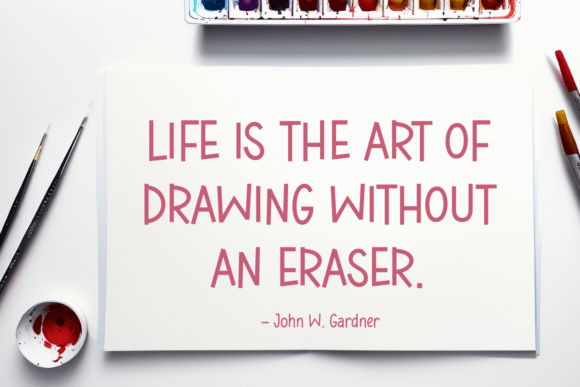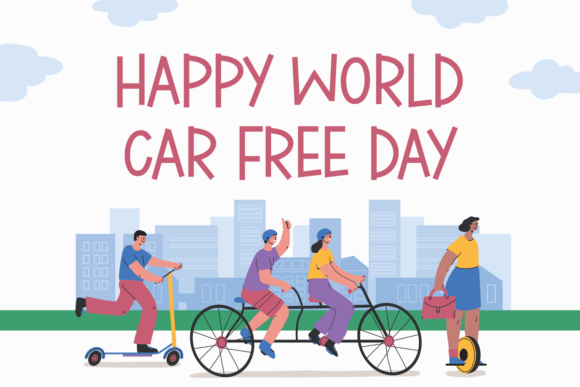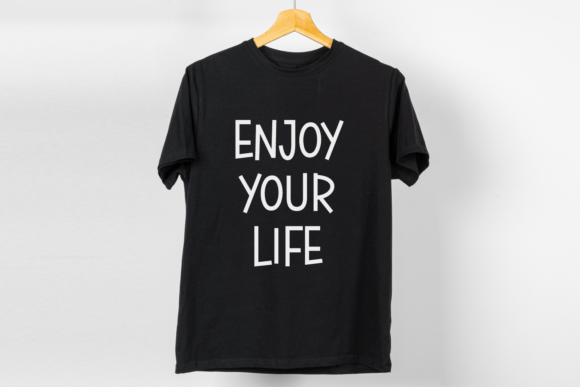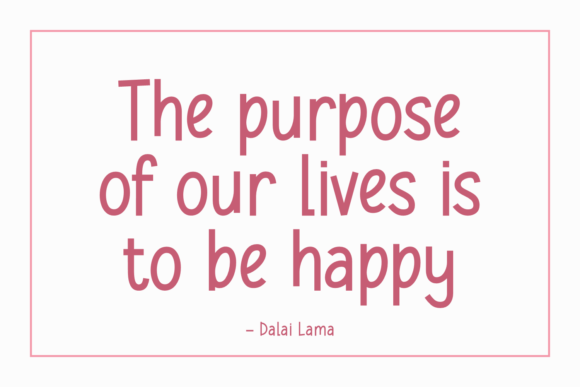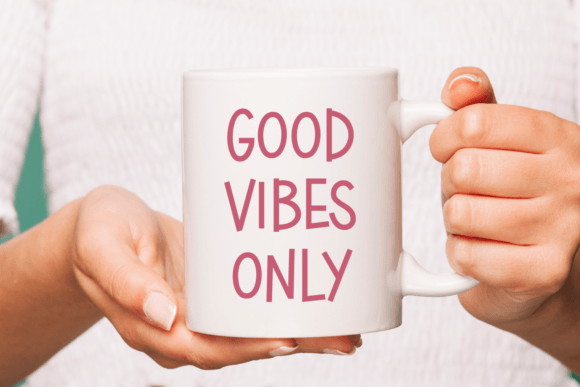
Discover the Delightful World of Fontkren: A Playful Display Font
Have you ever been in the middle of a design project, and suddenly, it feels like something’s missing? You’re not quite sure what it is, but you know it’s not quite right. I recall a recent experience where I was working on a children’s book, and my design just wasn’t popping. That’s when I stumbled upon Fontkren, a charming display font that instantly added a playful twist to my project.
A Personal Review of Fontkren
As a designer, I’m always on the lookout for fonts that can bring a unique touch to my projects. Here’s my honest review of Fontkren:
What I Love About Fontkren ✨
- ✅ Unique and Playful Design: Fontkren’s distinctive charm is perfect for quotes, T-shirt designs, mugs, and notebooks.
- ✅ Multilingual Support: This impressive font is designed to impress in any language, making it a great choice for global projects.
- ✅ Youthful and Fun: Fontkren’s youthful vigor makes it an ideal choice as a children’s font or for school-related projects.
- ✅ Warmth and Character: The font’s warmth resonates with the joy of Eastern European cultures, perfect for crafting lovely greeting cards and enthusiastic magazines.
While Fontkren is an excellent font, there are a few minor quirks to consider:
- 🤔 Limited Serif Options: Fontkren is a display font, so it’s best used for headlines and titles rather than body text.
- 🤔 Glyph Support: While Fontkren has an impressive range of glyphs, some users may find that it lacks specific characters or symbols.
The Backstory of Fontkren
While the origins of Fontkren are shrouded in mystery, it’s clear that this font was designed with a passion for playfulness and creativity. Imagine a designer, fueled by a love of Eastern European culture and a desire to create a font that would bring joy to children’s books and greeting cards. That’s the story behind Fontkren.
| Font Name | Fontkren Font |
| Author | Eightde |
| What is Fontkren? | Fontkren is a playful display font with a unique blend of cleanliness and fun. |
| Is Fontkren multilingual? | Yes, Fontkren is designed to impress in any language. |
In conclusion, Fontkren is a versatile and charming font that’s perfect for designers, crafters, and creative hobbyists. With its unique blend of playfulness and sophistication, it’s sure to add a touch of personality to any project.